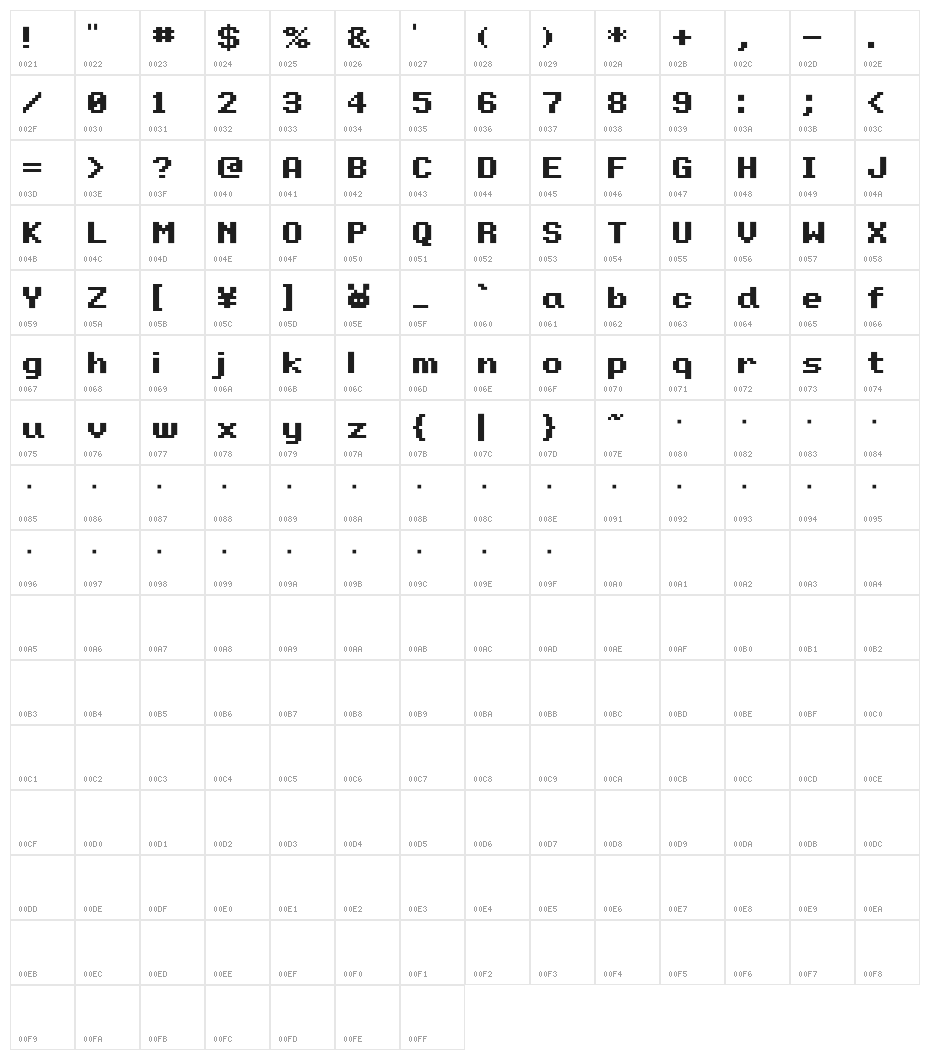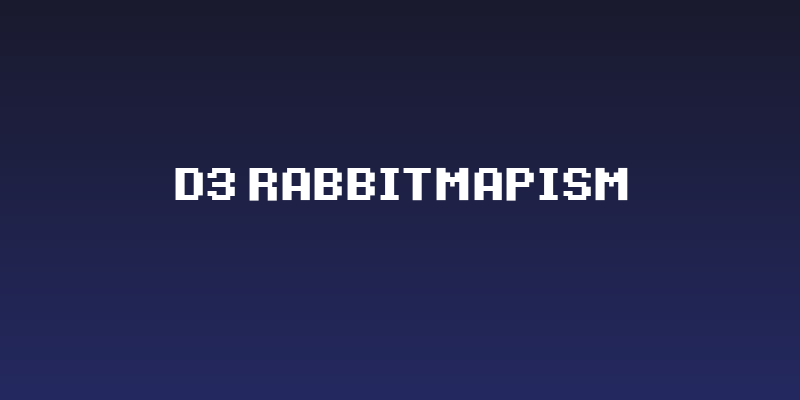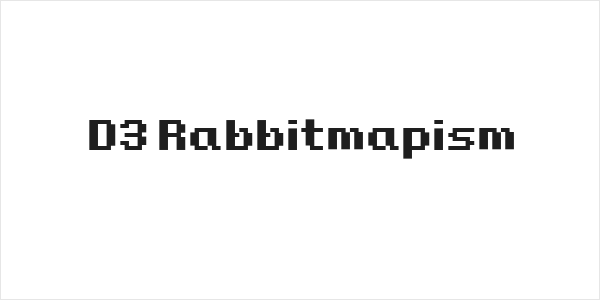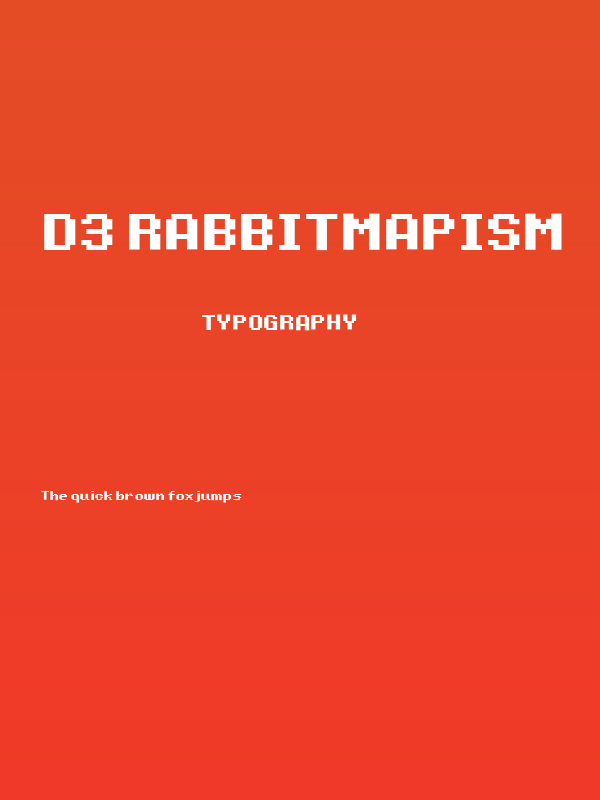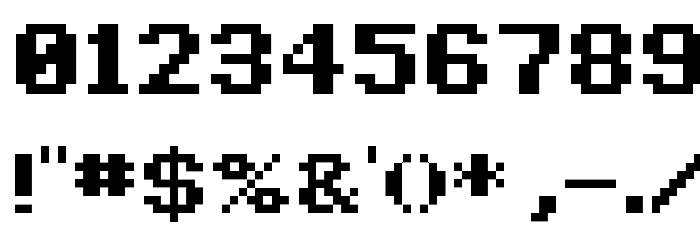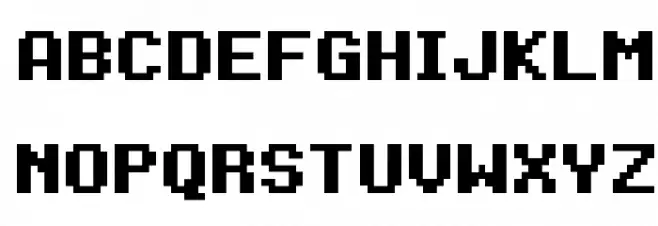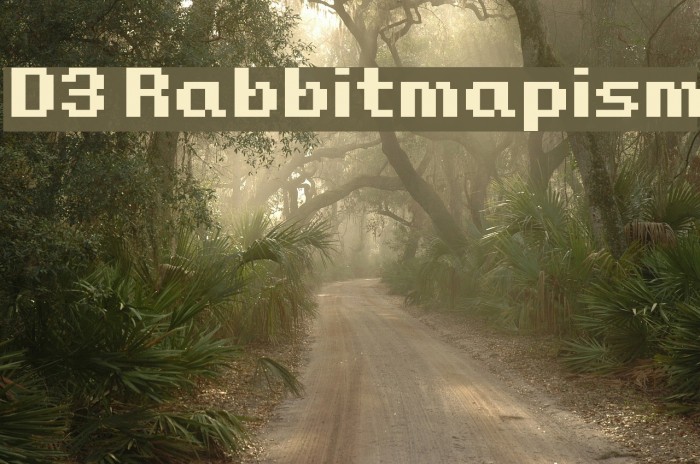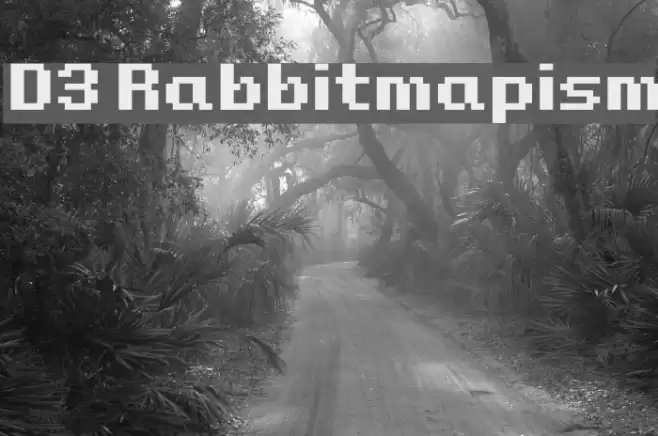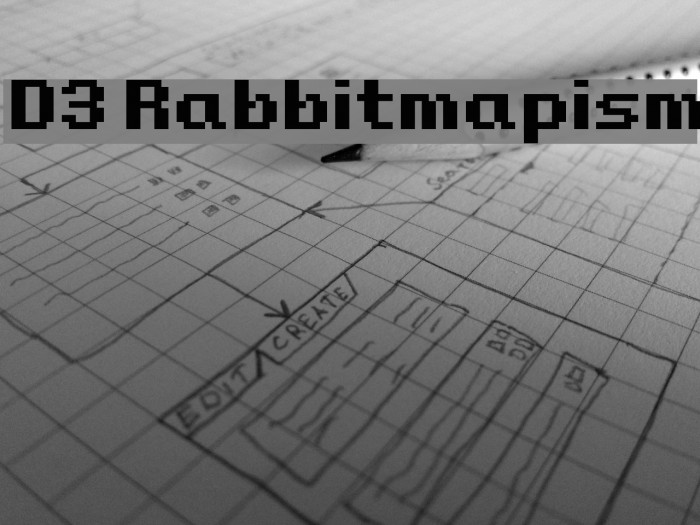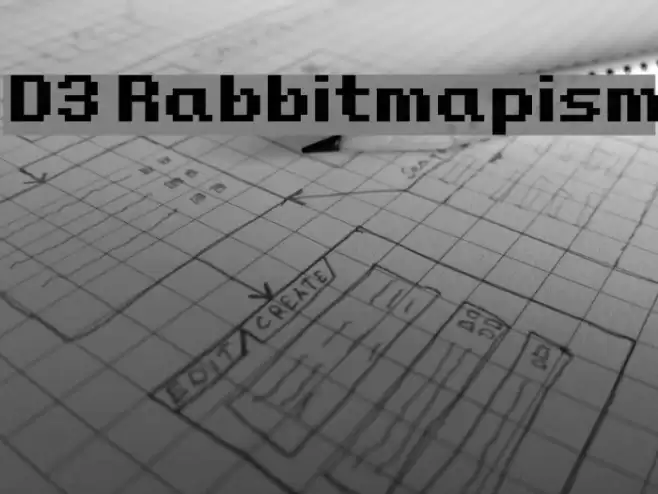
D3 Rabbitmapism Font
| Style général | Retro, Digital |
| Cas d'utilisation | Headlines, Logos, Digital Art |
| Projets proposés | Ideal for retro-themed video games, digital art projects, or any design requiring a nostalgic, digital look. |